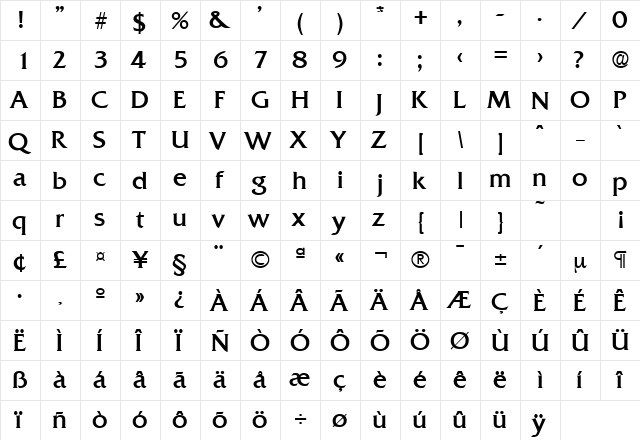
Quadrat-Serial Regular
Design Context for Quadrat-Serial Typeface
Quadrat-Serial is a composed and adaptable typeface that performs quietly and consistently across a wide range of design contexts.